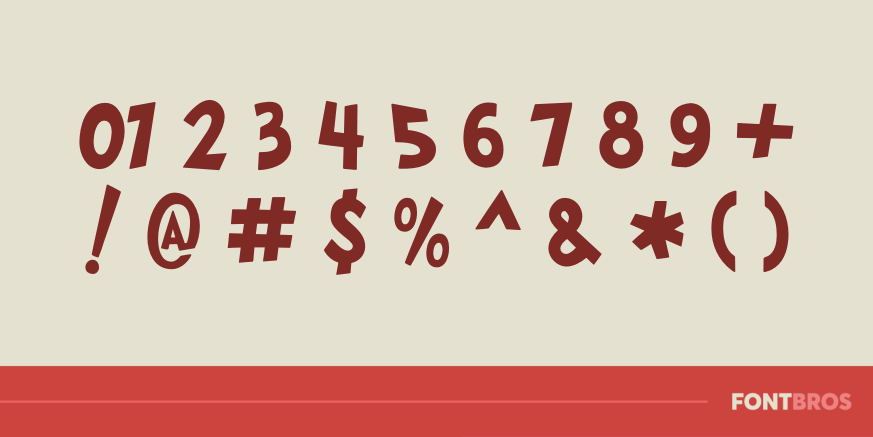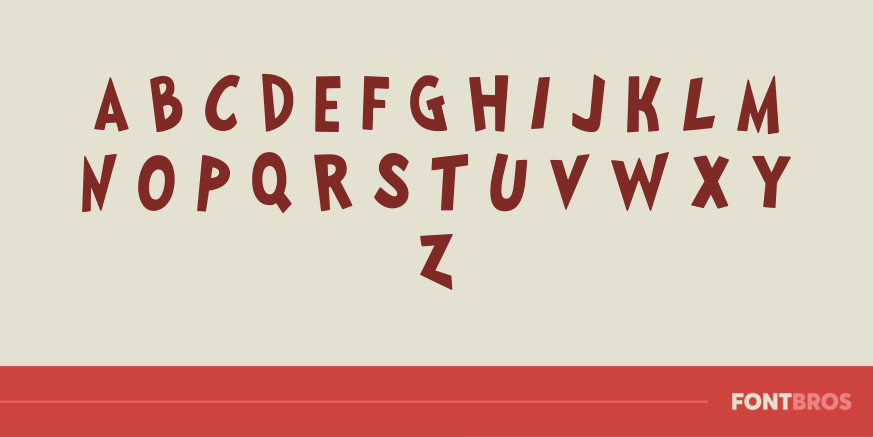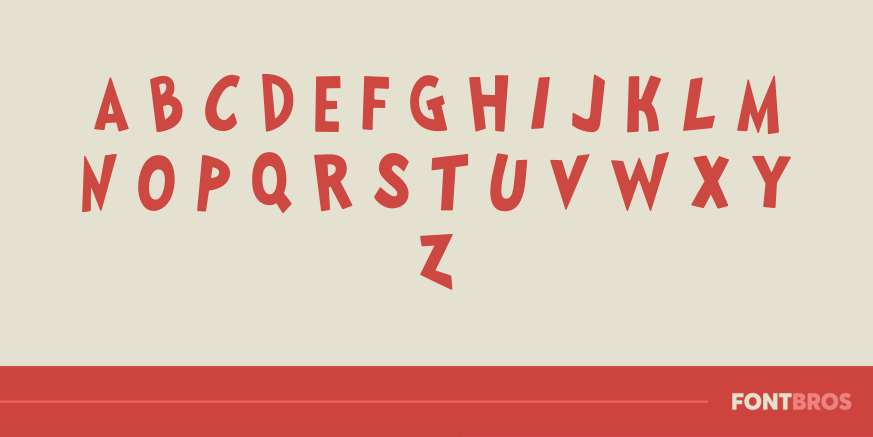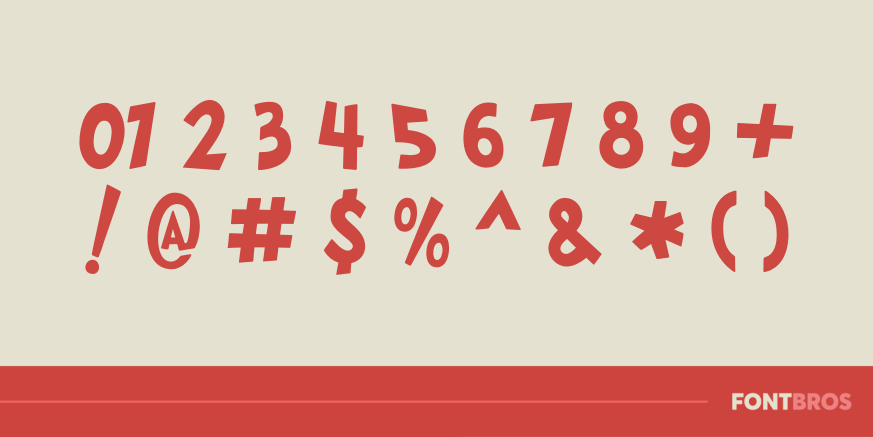
Jumping Bean
Jumping Bean is a playful retro sans serif with a loose, offbeat attitude that feels straight out of mid-century display design. Its wacky, animated look gives headlines and short phrases an instant sense of fun, making it a strong choice when you want typography with personality rather than polish.
With its 1940s, 1950s, and 1960s flavor, this single-style family is well suited to posters, packaging, signage, logos, party pieces, and other decorative display work that benefits from a lively vintage voice. Offered by Font Diner, it brings a cheerful throwback character that can make branding and creative projects feel more spirited and memorable.